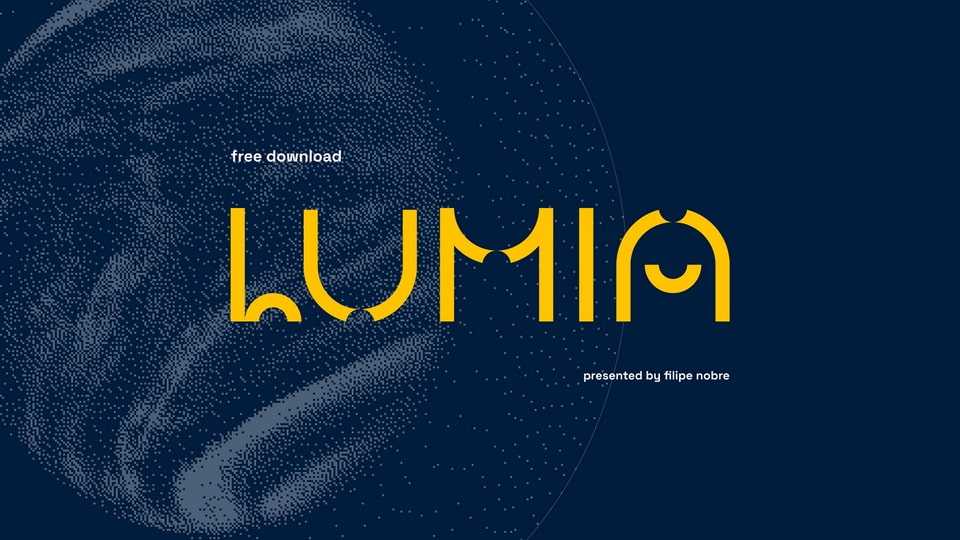
Download Lumia font, a modular display typeface designed exclusively with four shapes, inspired by the Art Deco movement and outer space.
Designer: Filipe Nobre